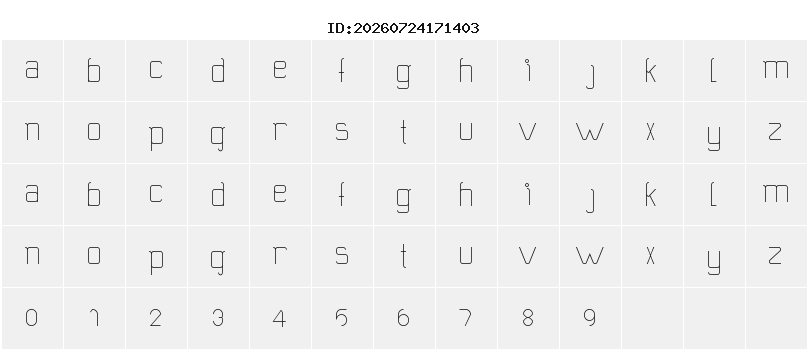
• Font Name: grigo
• Designer: Alex Grigoras
grigo.ttf is a modern, elegant sans-serif font designed for ultimate readability and visual harmony. Perfect for branding, headlines, web design, and print materials.